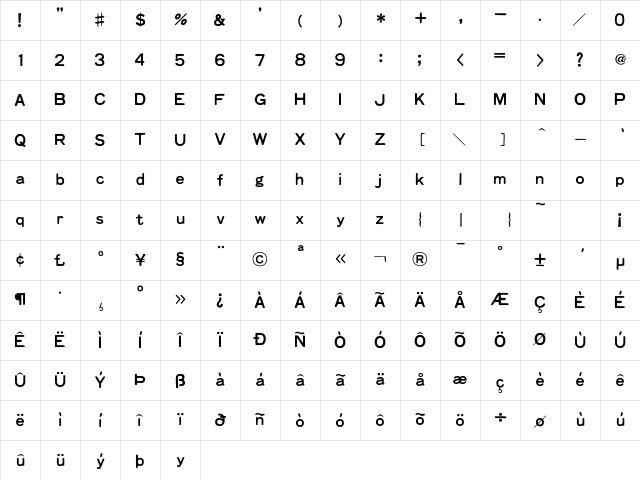
Complete Faxfont Standard glyph index. Displaying only characters natively supported by Faxfont Standard font.
Faxfont is a composed and adaptable typeface that performs quietly and consistently across a wide range of design contexts.